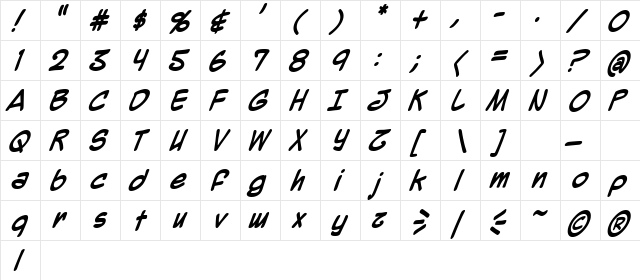
Mighty Zeo Bold
Mighty Zeo Family
Design Context for Mighty Zeo
Mighty Zeo is a composed and adaptable typeface that performs quietly and consistently across a wide range of design contexts. Its bold stroke weight gives it real presence on the page.